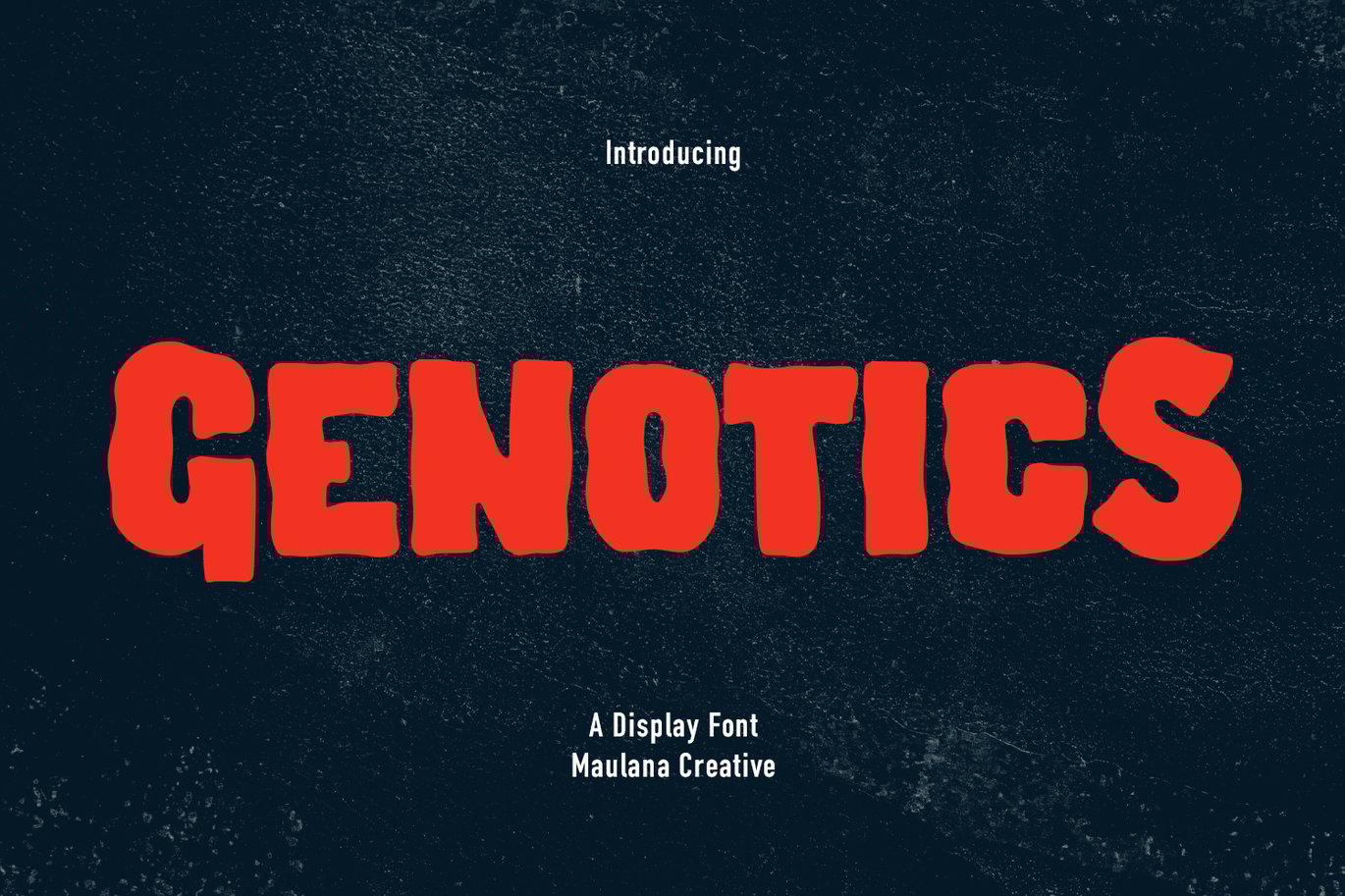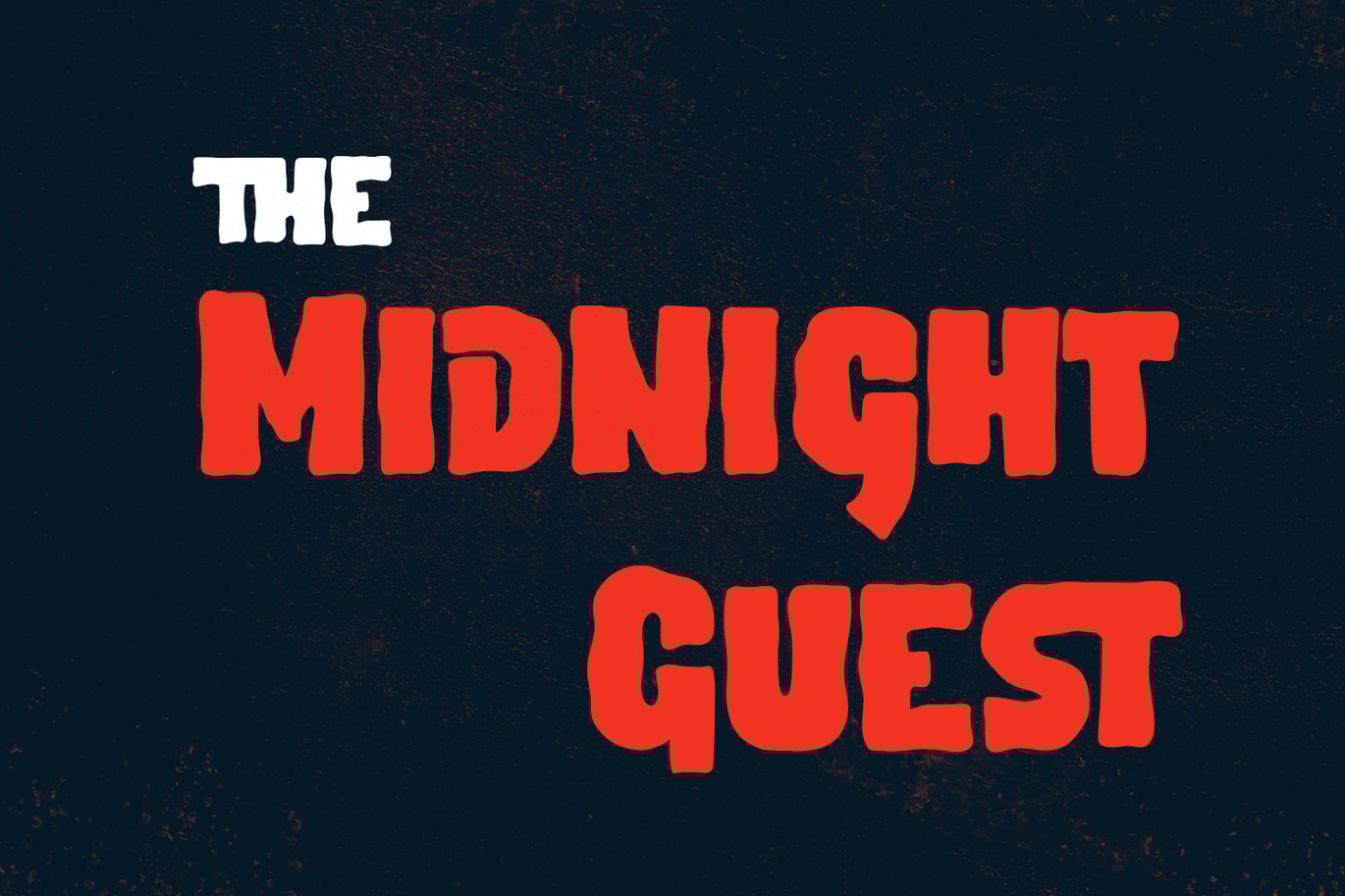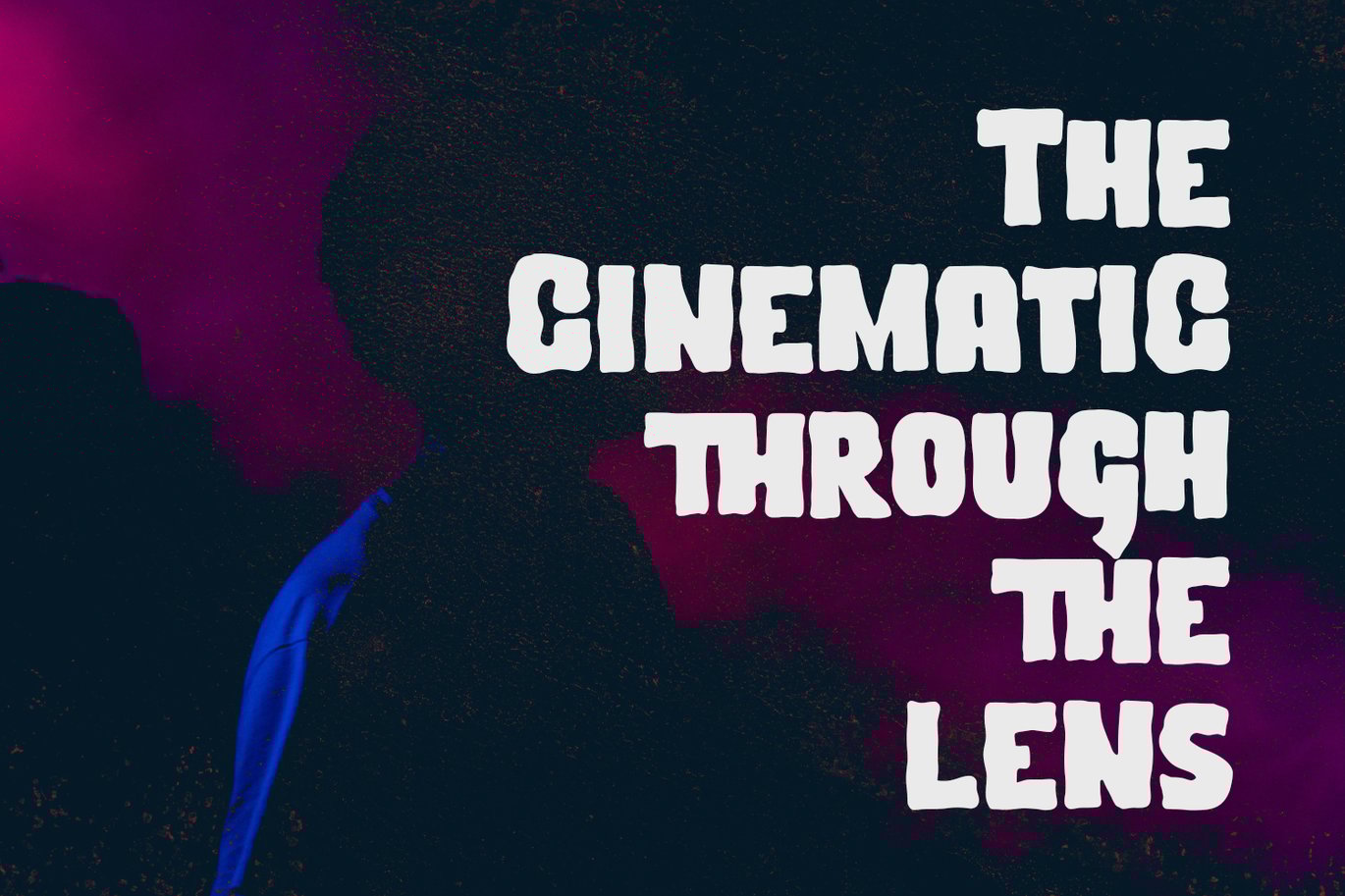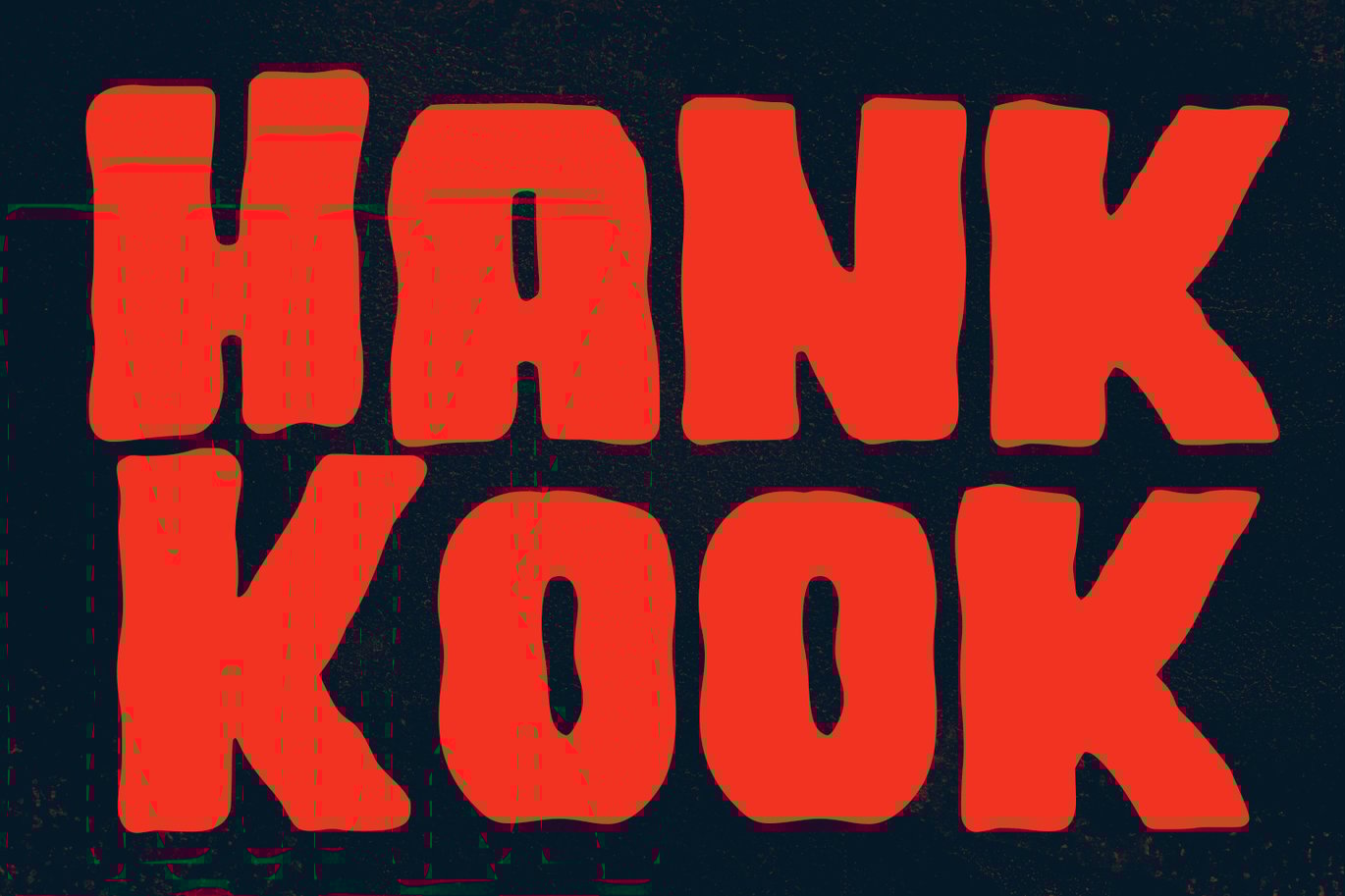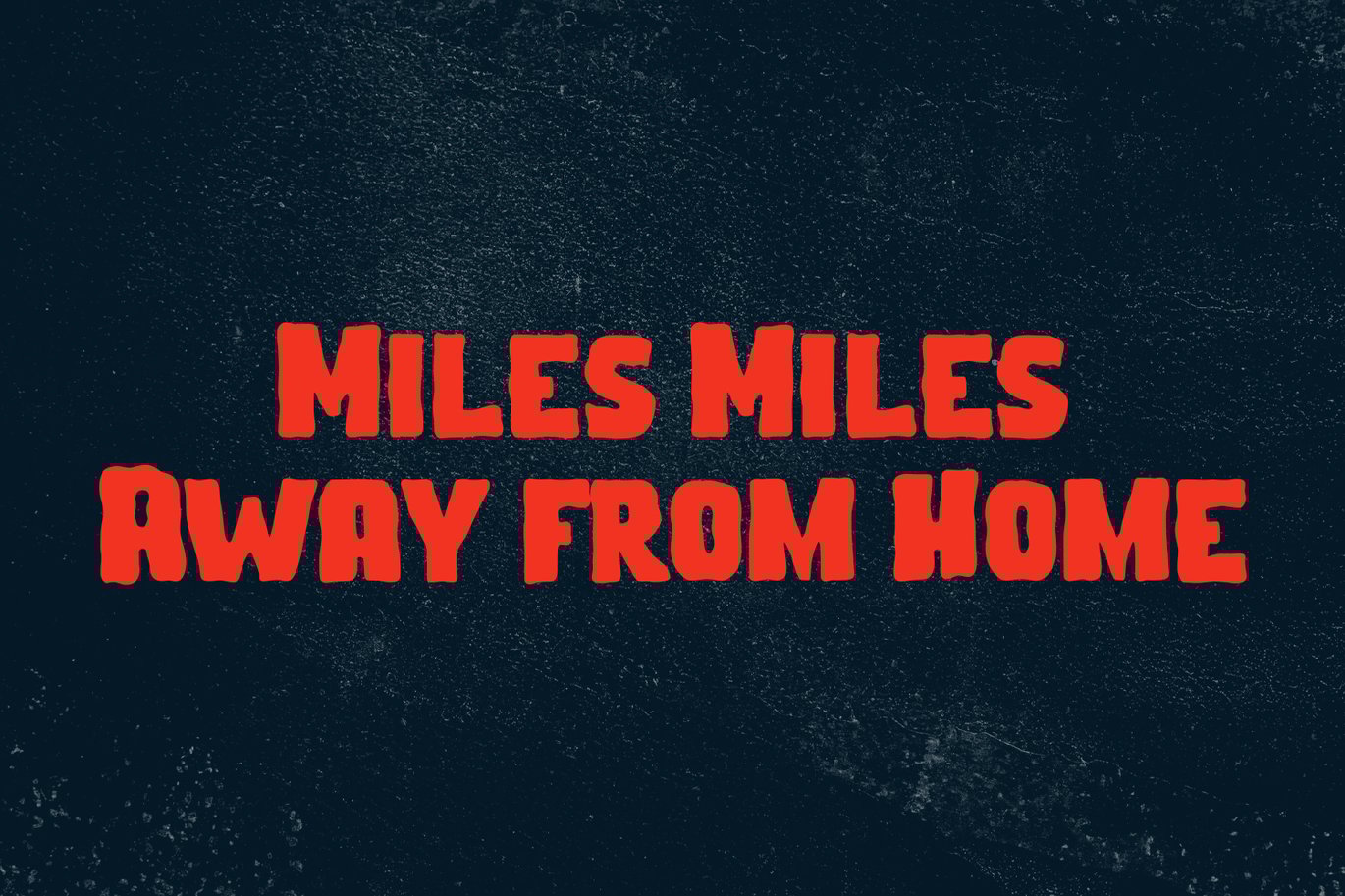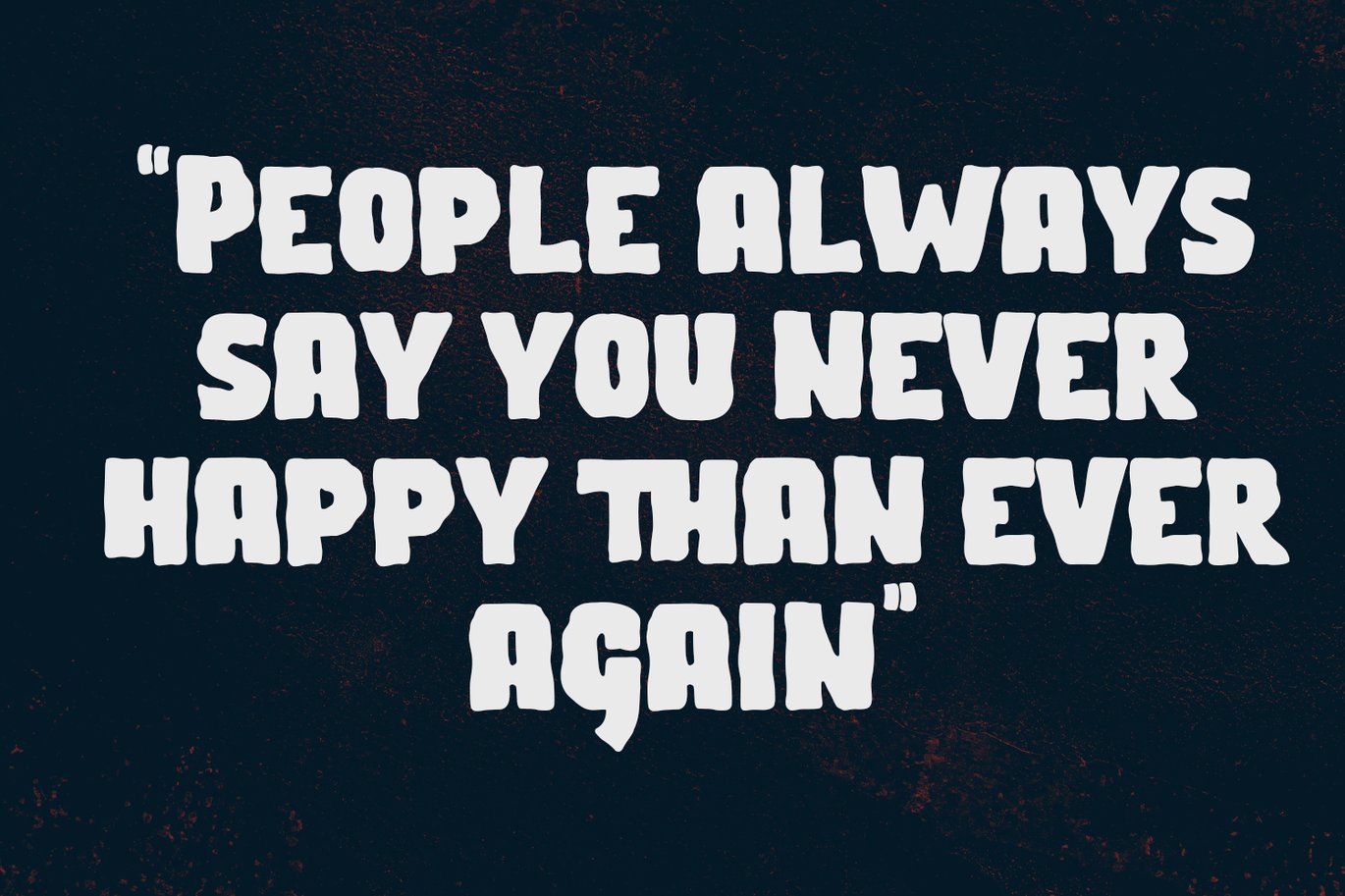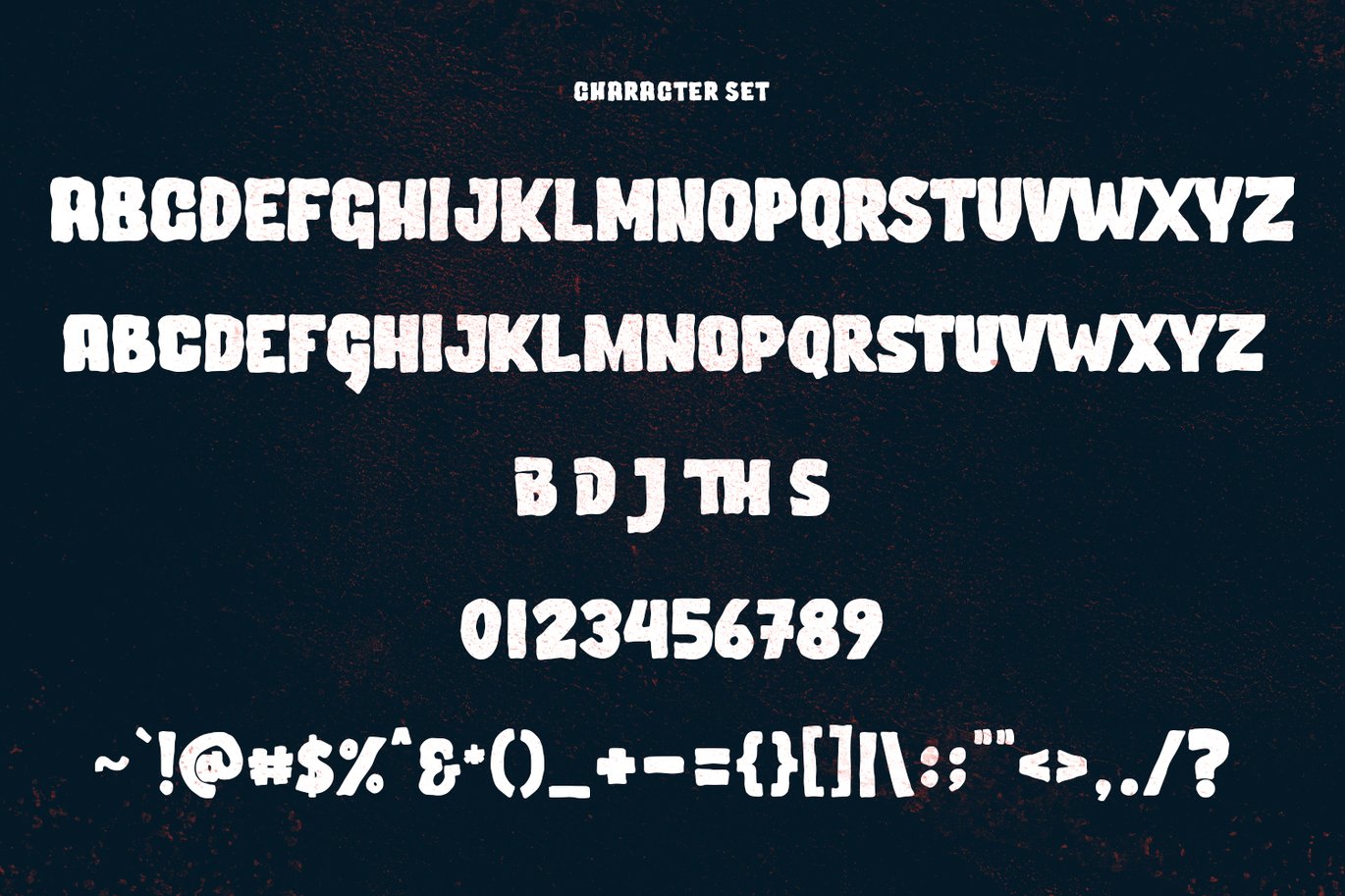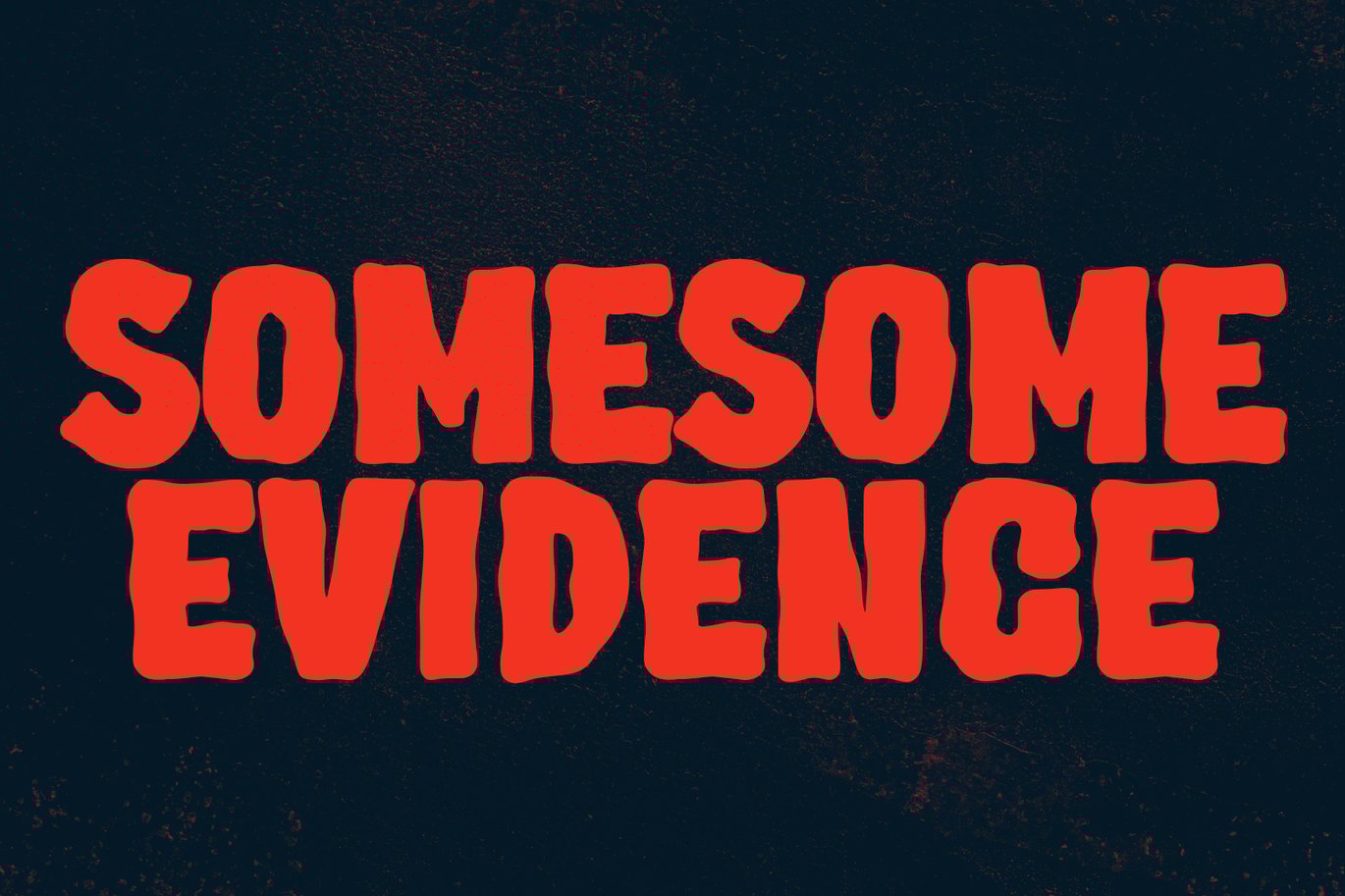
Genotics Handwritten Display Font
Genotics is a Decorative Display font. With bold wavy stroke, uprights and fun character with a bit of ligatures and lowercase alternates. To give you an extra creative work. Genotics font support multilingual more than 100+ language. This font is good for logo design, Social media, Movie Titles, Books Titles, a short text even a long text letter and good for your secondary text font with sans or serif. Make a stunning work with Genotics font.